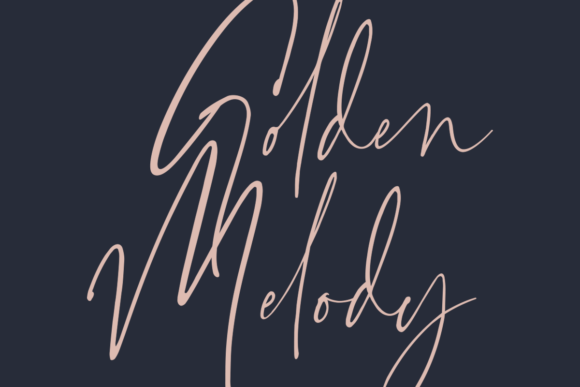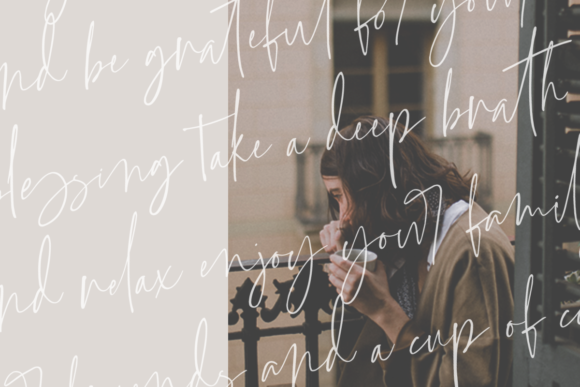
Grandiose Font
db-ku.com - Script & Handwritten -- Grandiose is a stunning handwritten font with beautiful characters. Get inspired by its bold charm!